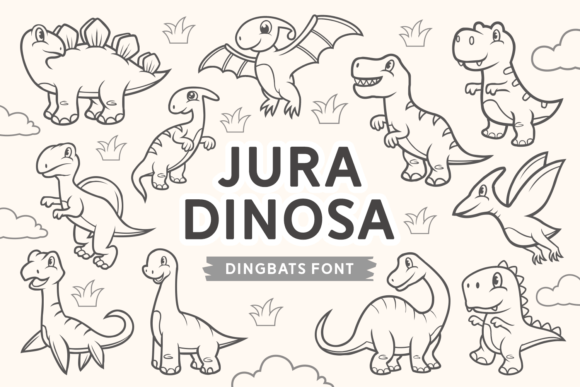
Welcome to the captivating world of Jura Dinosa, the ultimate dingbat font designed specifically for dinosaur enthusiasts and creative professionals. Created by the talented Dito from 7NTypes, this font will take you on a prehistoric journey like no other.
Imagine yourself being transported back in time, surrounded by magnificent creatures that once ruled the earth. With Jura Dinosa, you can embrace the enchantment of the prehistoric world and infuse it into your designs, captivating your audience and leaving them in awe.
Whether you're designing a wanted poster, a children's book, or a logo for a dinosaur-themed event, Jura Dinosa has got you covered. This font is not your ordinary typeface - it's a collection of charming dinosaurs, each with their own personality and style. From the mighty T-Rex to the graceful Stegosaurus, these dingbats will bring your designs to life.
But Jura Dinosa is not just for designers. It's for anyone who wants to add a touch of adventure and whimsy to their projects. With this font, you can create invitations that transport your guests to a long-lost world, design captivating social media posts that make your audience roar with excitement, or even craft unique tattoos that showcase your love for dinosaurs.
One of the greatest advantages of Jura Dinosa is its versatility. You can easily customize the size, color, and position of each dinosaur, allowing you to create truly unique and eye-catching designs. Let your imagination run wild as you combine these captivating dingbats with other fonts or graphics, and watch as your creations come to life.
But Jura Dinosa is not just about aesthetics - it's also about functionality. This font is meticulously crafted to ensure that each dinosaur is easily recognizable and blends seamlessly with your text. Say goodbye to dull and generic symbols, and say hello to a font that truly stands out.